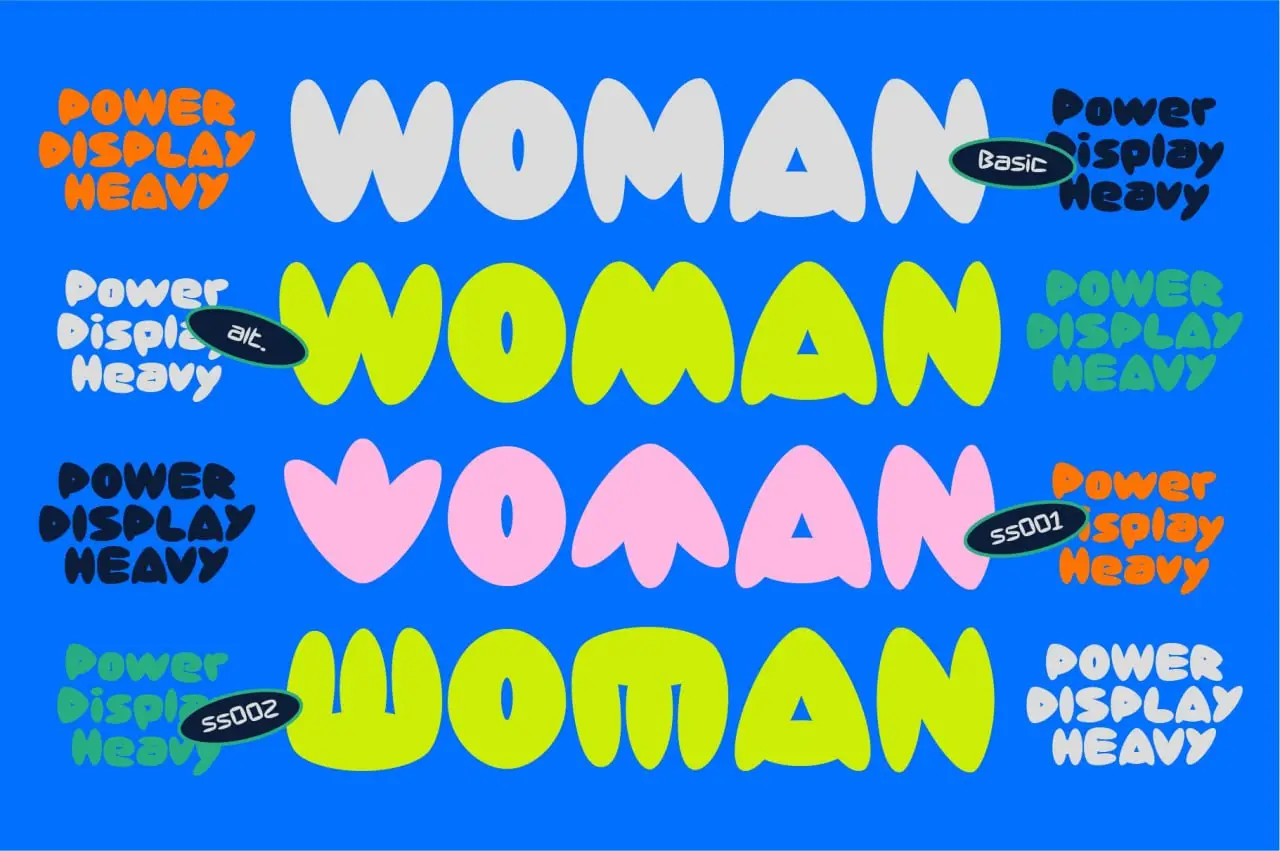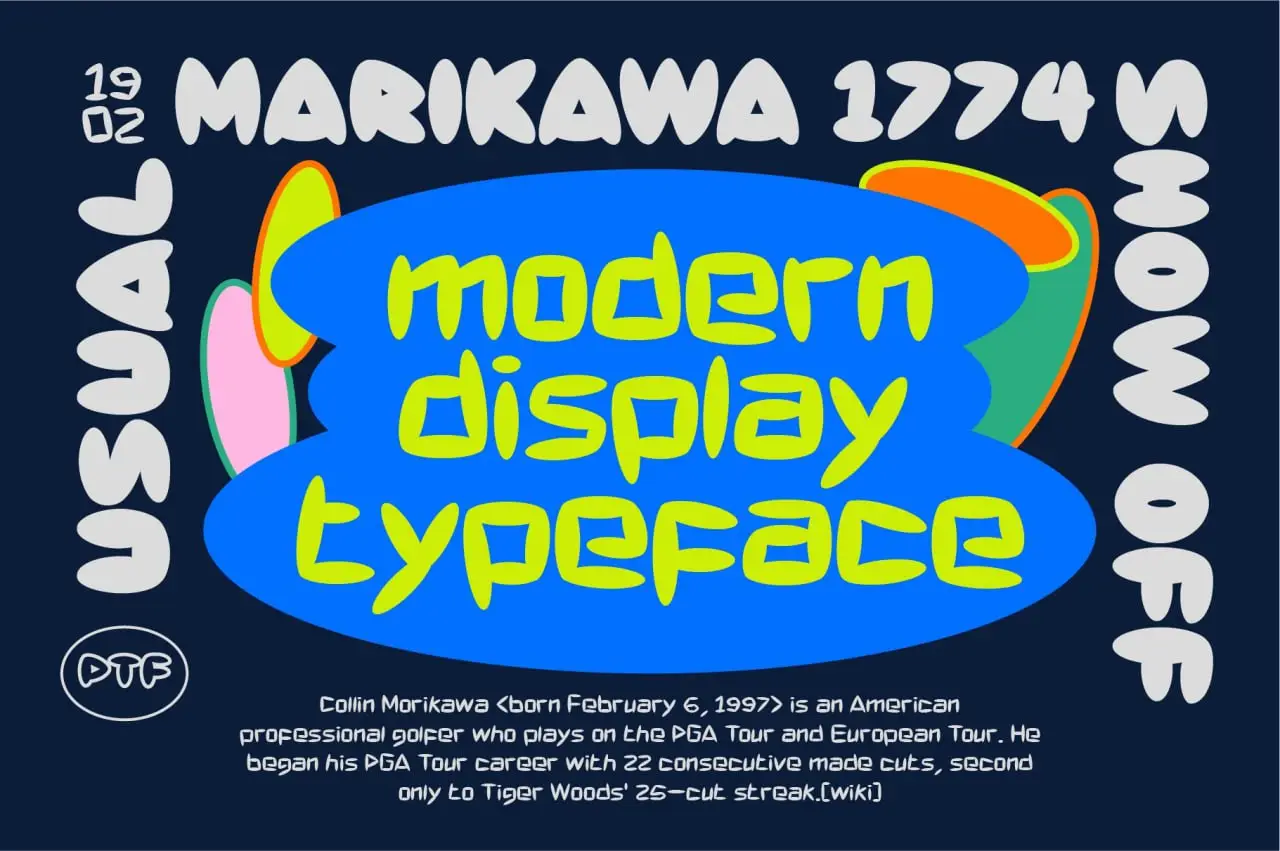
Power Display Font By Teguh Arief Power Type
The Power Display Font by Teguh Arief Power Type is a striking typeface designed specifically for impactful visual communication. This font features a bold and modern aesthetic, making it ideal for headlines, branding, and promotional materials.
• Unique display style with strong character
• Multiple weights for versatile usage
• Clear legibility at various sizes
• Perfect for branding, logos, and web design
• Great for print materials like posters and flyers
• Utilize in UI design for a modern touch